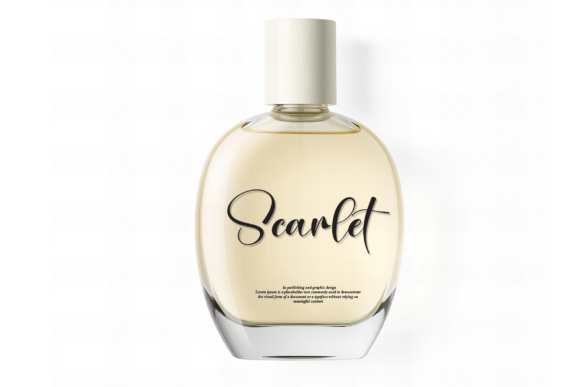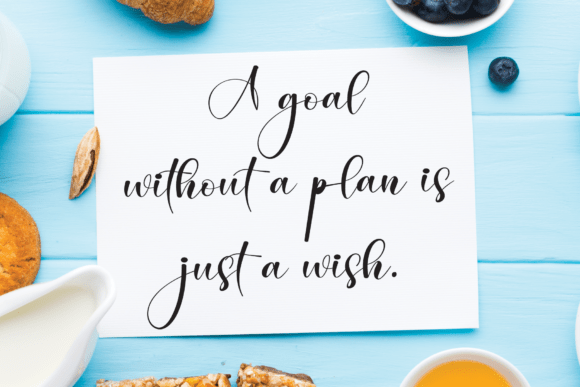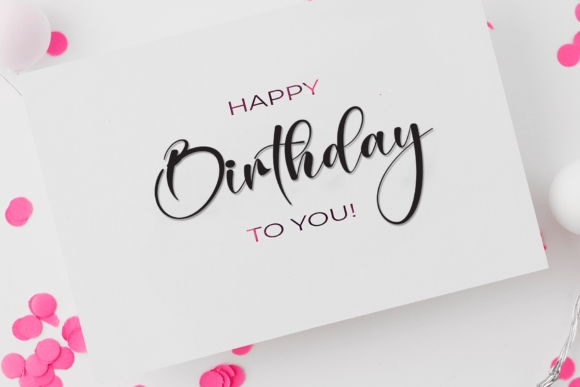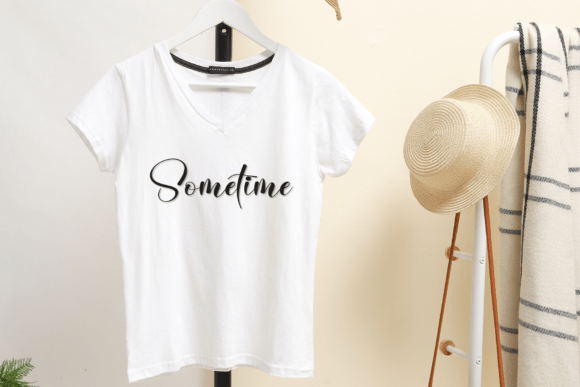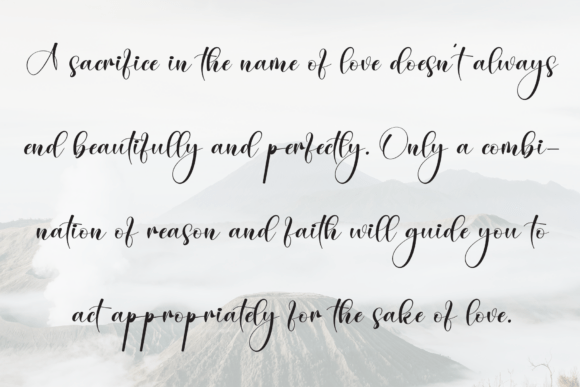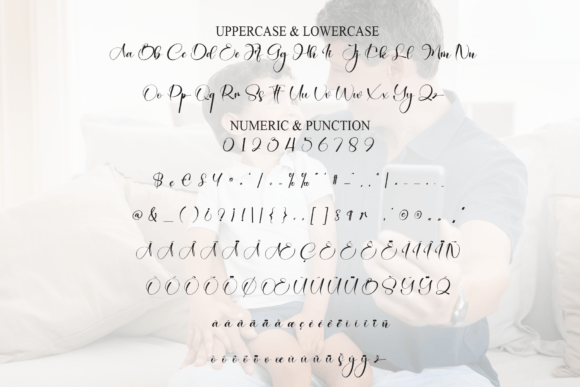
The Perfect Gift: Introducing Father Font
I’ll never forget the struggle I faced while working on a Father’s Day project for a client. The task was to create a custom gift that would make the dad feel special, but I was stuck on finding the right font. I wanted something that would convey the love, respect, and warmth that comes with being a father. That’s when I discovered the Father Font – a modern handwritten font that brings a sophisticated, personal touch to any design.
A Personal Touch: What Makes Father Font Special
Father Font is a New Style typeface that features bold, expressive strokes and elegant, sweeping flourishes. It’s the perfect balance of authority and affection, making it ideal for creating custom Father’s Day gifts, masculine branding, or heartfelt family keepsakes.
Honest Review: The Good and the Great
Here’s what I love about Father Font:
- ✨ Unique and eye-catching design: The font’s bold strokes and elegant flourishes make it stand out from other handwritten fonts.
- ✅ High-end aesthetic: Father Font gives your designs a sophisticated, hand-penned look that’s perfect for special occasions.
- 💕 Emotional connection: The font’s warm and inviting tone helps create an emotional connection with your audience.
And, like any font, it’s not perfect. Here are a few quirks to keep in mind:
- 🤔 Limited use in small sizes: Due to its bold design, Father Font may not be the best choice for small text sizes or body copy.
- ⚠️ Some glyphs may require manual adjustment: Depending on the design, you may need to adjust some glyphs to ensure they fit perfectly.
- Experiment with OpenType features, such as Stylistic Alternates and Swashes, to add more personality to your design.
The Designer Inspiration Behind Father Font
The story behind Father Font is one of love and inspiration. The designer, who wished to remain anonymous, created Father Font as a tribute to their own father. They wanted to capture the warmth, strength, and kindness that defines paternal bonds. The result is a font that’s both modern and timeless, perfect for celebrating the special men in our lives.
| What makes Father Font unique? | Father Font’s unique blend of bold strokes and elegant flourishes sets it apart from other handwritten fonts. |
| Is Father Font suitable for body copy? | While Father Font is beautiful, it’s best used for headlines, titles, and short text. For body copy, a clearer font may be more suitable. |